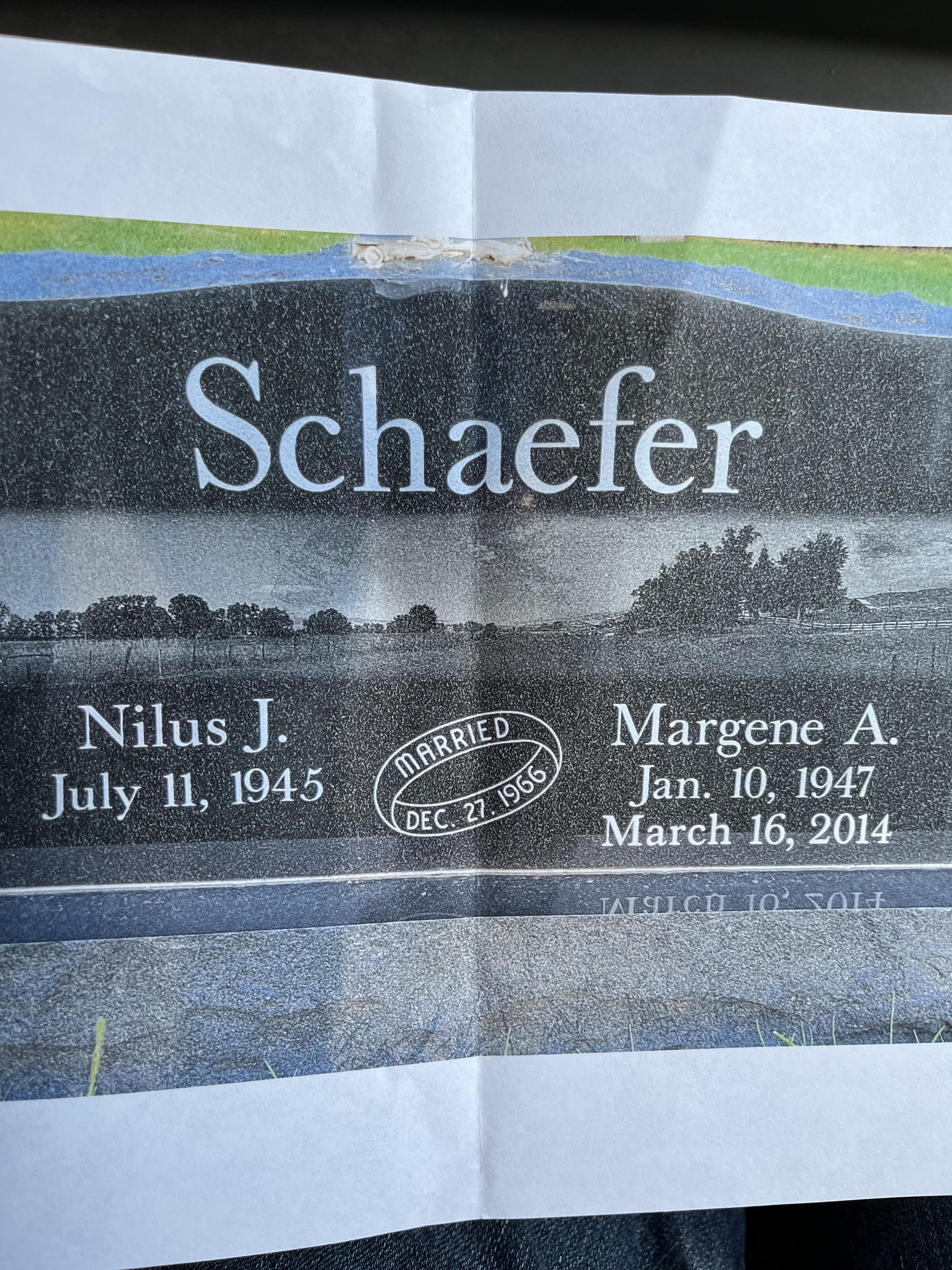
I thought this was Baskerville but the 2 doesn’t match. Any ideas?
This font is made more difficult to identify by the fact that the original font used—and the second date added to Margene’s side at a later date—are actually two different versions of Baskerville. This can be seen by looking at the two different ‘4’s used in Margene’s years of birth and death.
The original version is Baskerville ACCT AK Rev B in Gerber. I am unaware of any other version of this font outside of Gerber.
The March date added later appears to be Libre Baskerville.
This job will need to have a mixture of the two fonts in order to not be noticeably different.